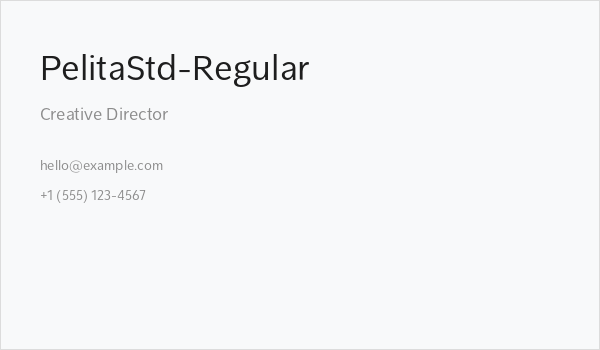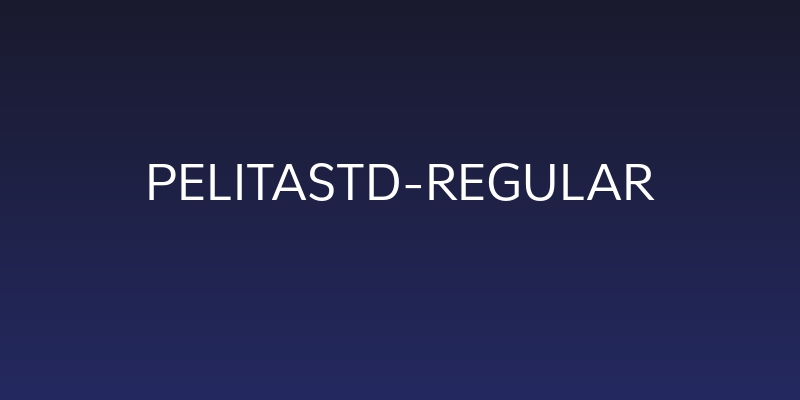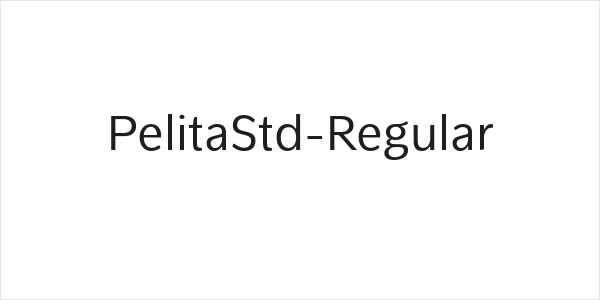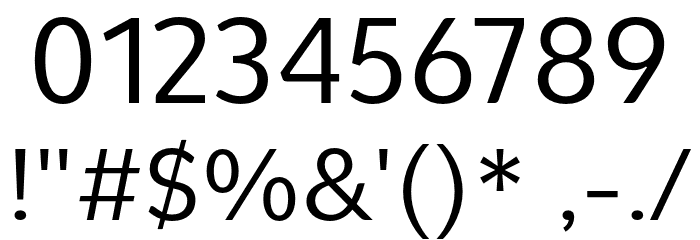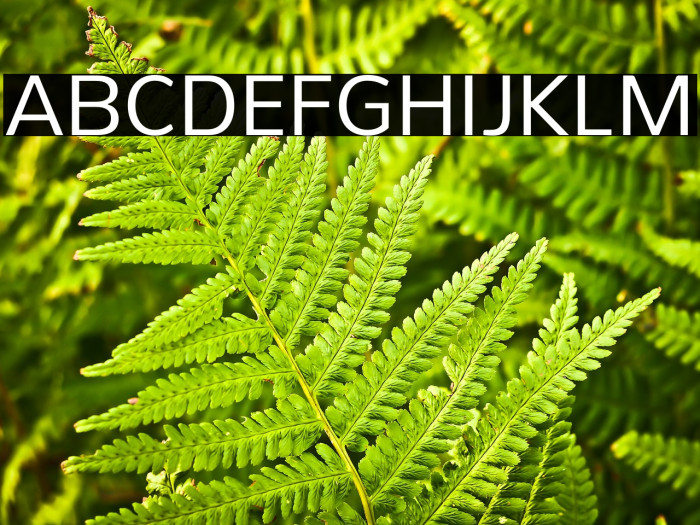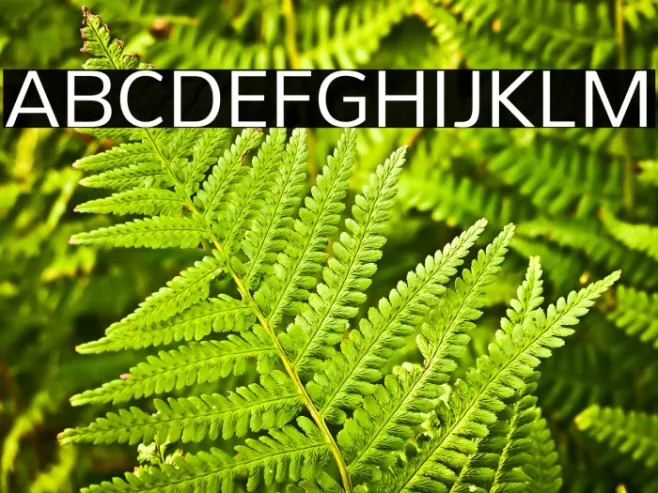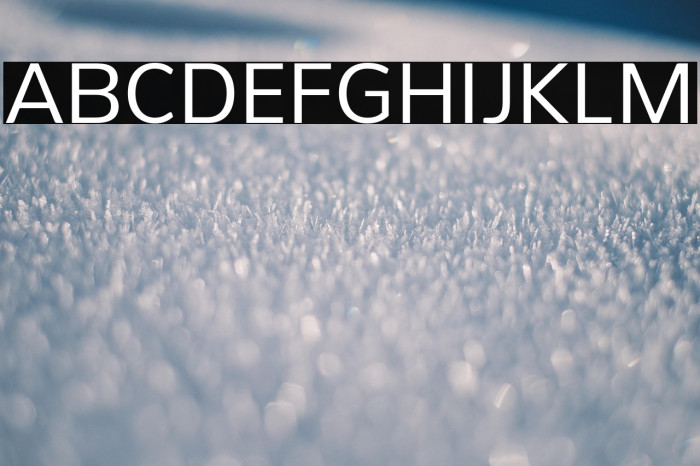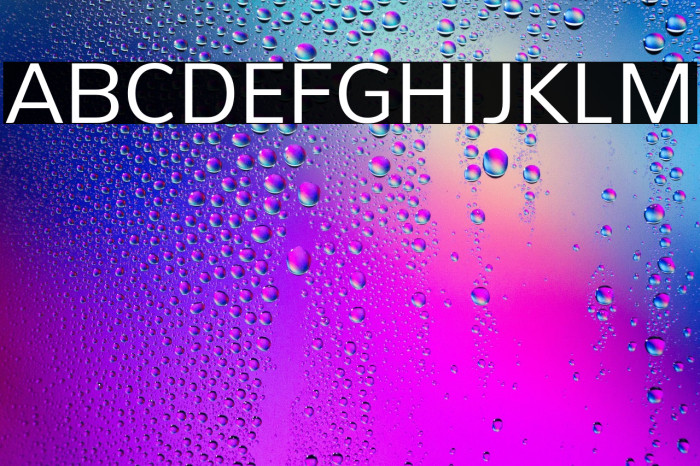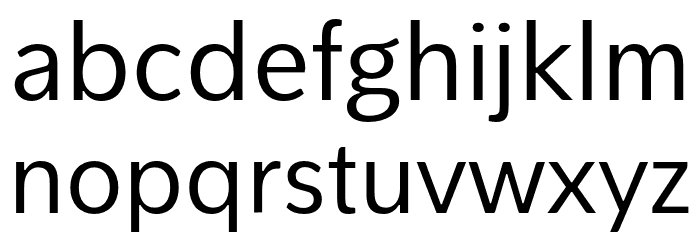
PelitaStd-Regular Font
PelitaStd-Regular Description
This font features a clean and modern sans-serif design, characterized by its simplicity and readability. The characters are well-proportioned with a consistent stroke width, making it suitable for a variety of applications. Uppercase and lowercase letters are distinct and clear, while numerals and special characters maintain the same clarity and uniformity. The overall appearance is sleek and professional, ideal for both digital and print media.
| Proposed Projects | Ideal for corporate branding, web design, user interfaces, and editorial content. |